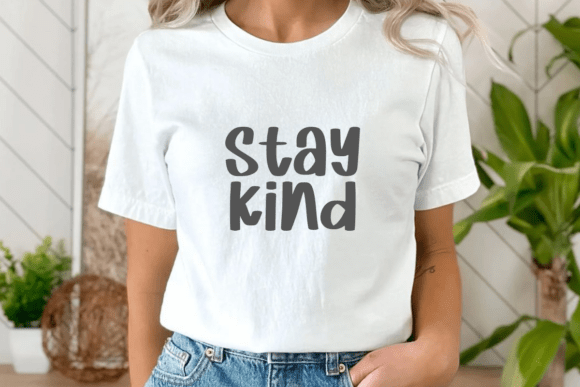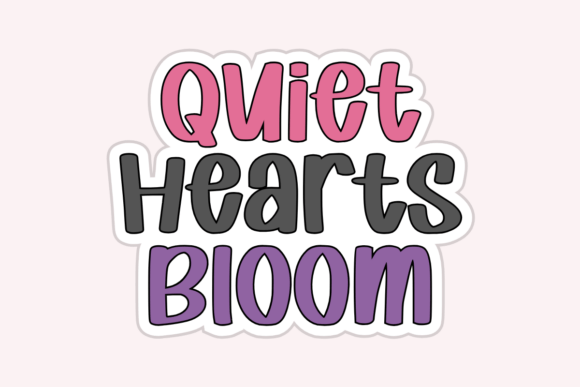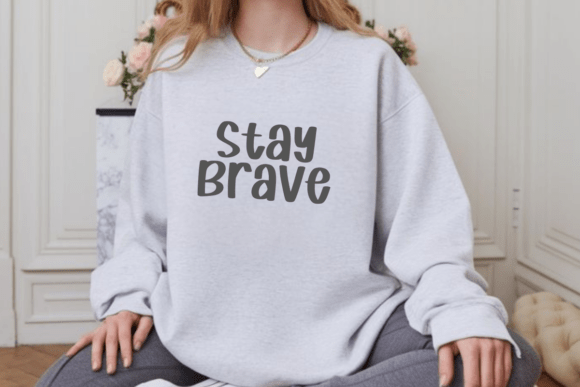
Introduction to Preppy Funky Font
Remember the thrill of crafting a handmade card for a loved one, or the satisfaction of creating a customized sticker for a special event? For many of us, crafting is not just about the end result, but about the process itself – the joy of bringing our ideas to life, one brushstroke at a time. If you’re like me, you’re always on the lookout for design resources that make this process easier, more fun, and more expressive. That’s where the Preppy Funky Font comes in – a charming, handcrafted font that’s perfect for adding a personal touch to your creative projects.
With its soft, friendly, and natural look, the Preppy Funky Font is a game-changer for designers who value high-quality, versatile fonts that can be used across a range of creative projects. From quotes and greeting cards to kids’ labels and scrapbooks, this font is a must-have for anyone looking to add a touch of whimsy and personality to their work. And the best part? It’s easy to use, even for those who are new to font design – simply download, install, and start creating!
Key Features of Preppy Funky Font
- Unique Blend of Preppy and Funky Styles: This font combines the elegance of preppy designs with the edginess of funky typography, making it perfect for creative projects that require a touch of sophistication and playfulness.
- High-Quality Design Resource: Preppy Funky Font is a high-quality design resource that offers a unique and stylish look for your designs, making it an excellent choice for designers and artists.
- Transparent Background: The font features a transparent background, allowing you to easily combine it with other design elements and create a seamless look.
- Perfect for Creative Projects: This font is perfect for creative projects that require a unique and stylish look, such as graphic design, digital art, and typography-based designs.
- High Resolution: The font is available in high resolution, making it perfect for large-scale designs and prints.
Honest Review: Preppy Funky Font
I recently stumbled upon the Preppy Funky Font while searching for a design resource to give my creative project a unique touch. As a designer, I appreciate fonts that offer a mix of sophistication and playfulness, and this one certainly delivers.
What works well with the Preppy Funky Font is its high quality and versatility. It’s perfect for both digital and print-based designs, making it a great addition to any designer’s toolkit. The font is also free to download, which is a huge plus. I love that it comes with a transparent background, making it easy to integrate into any design.
The Preppy Funky Font is ideal for designers who want to add a bit of whimsy to their projects. Here are some of its key features:
- High-quality design that’s perfect for digital and print-based projects
- Transparent background for easy integration into designs
One thing to note is that the font may not be suitable for very formal or conservative designs ⚠️. However, for a creative project that needs a bit of personality, the Preppy Funky Font is a great choice ✨.
Overall, I’m impressed with the Preppy Funky Font. It’s a fantastic design resource that’s perfect for designers who want to add a bit of fun and personality to their projects. I’d definitely recommend it to anyone looking for a high-quality, free font that’s perfect for creative projects.
The Preppy Funky Font is a high-quality, unique design resource perfect for creative projects. It features a transparent background, making it easy to use in various design applications.